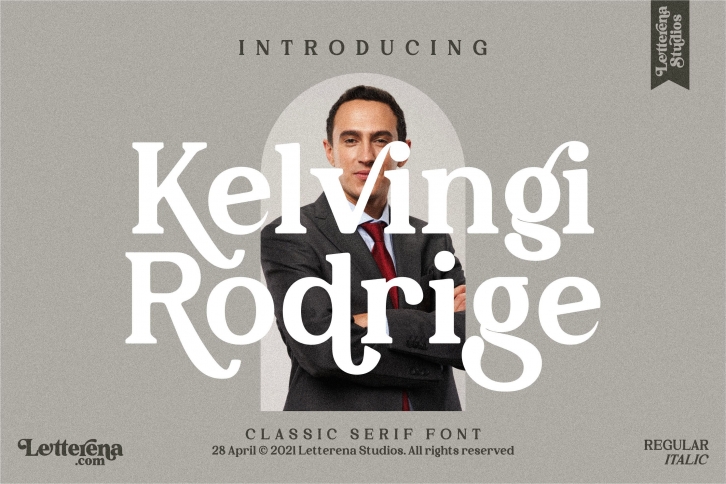
Kelvingi Rodrige is a gorgeous font that was realeased on April 27, 2021. The font can be used in many style contexts and design environments. Perfect for invitations, magazines, websites, logos, and more! It was designed by Letterena Studios and the file size is 9.75 MB. Thanks for checking out this font!